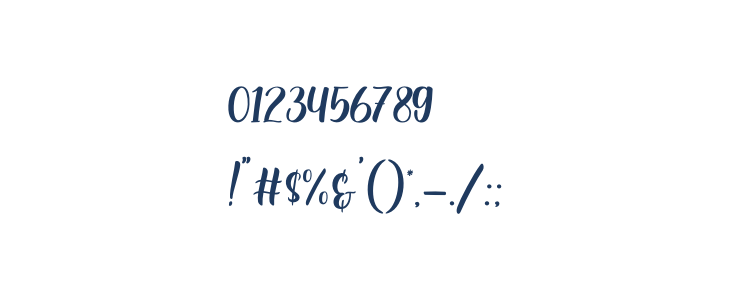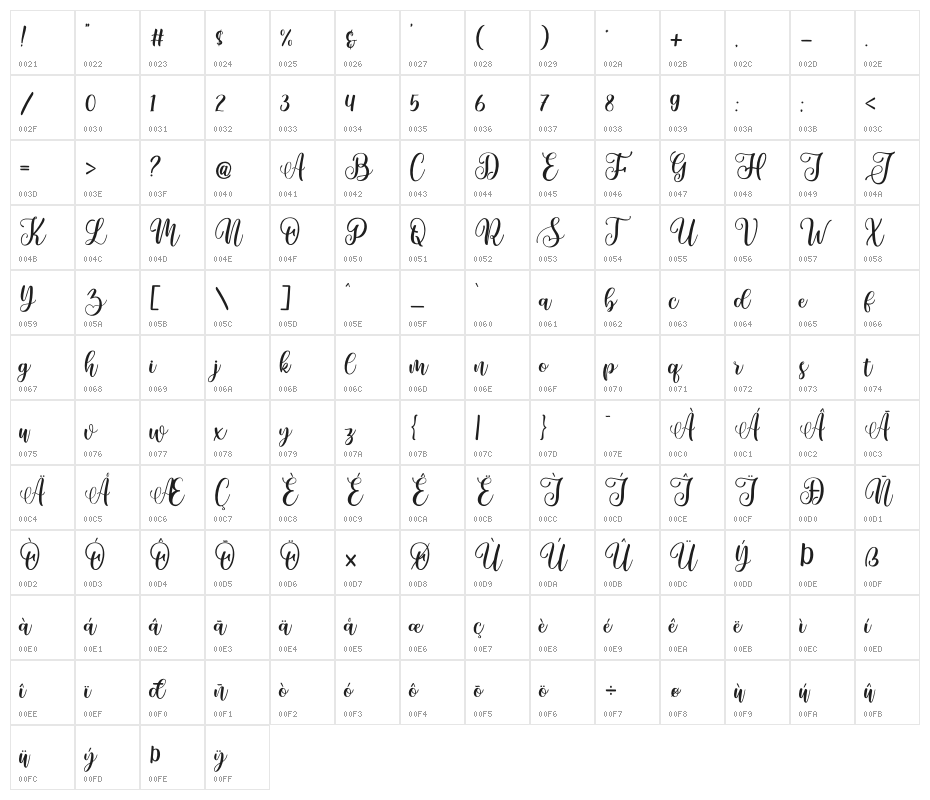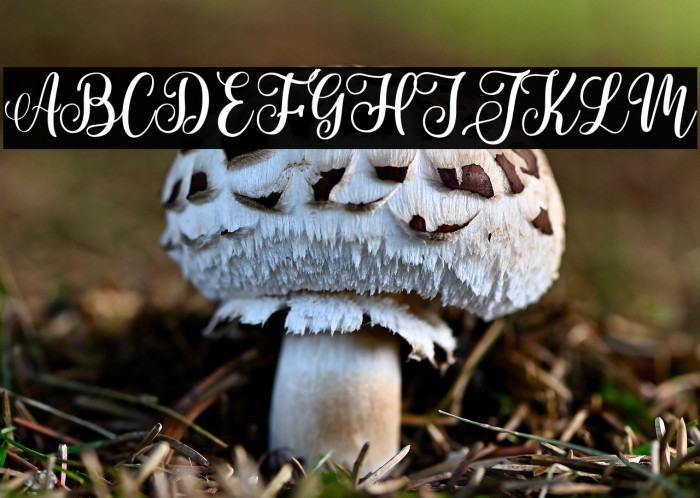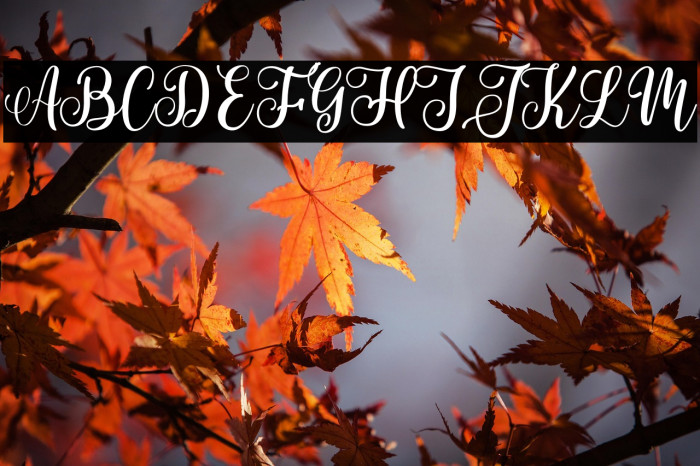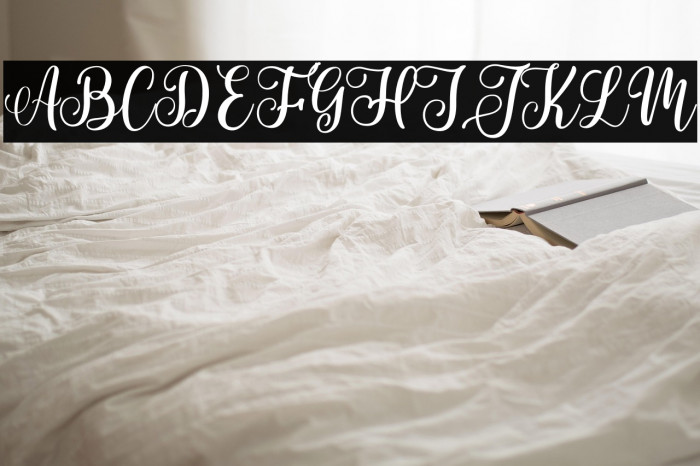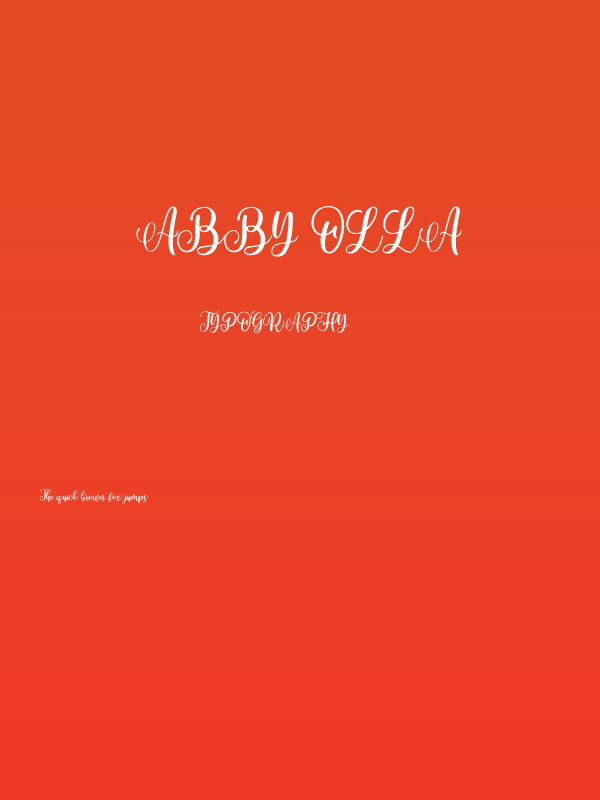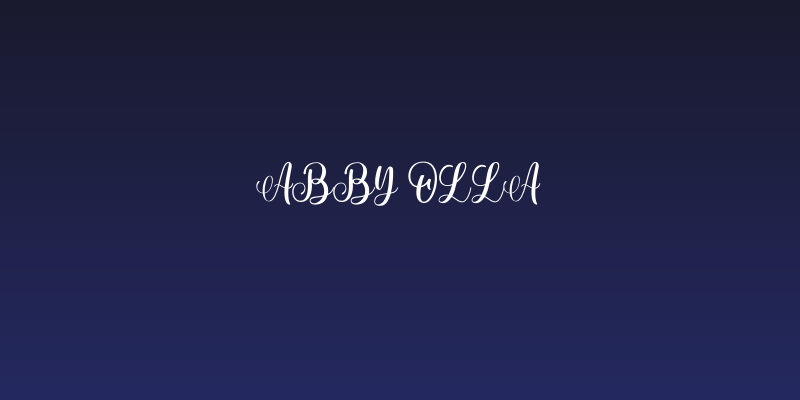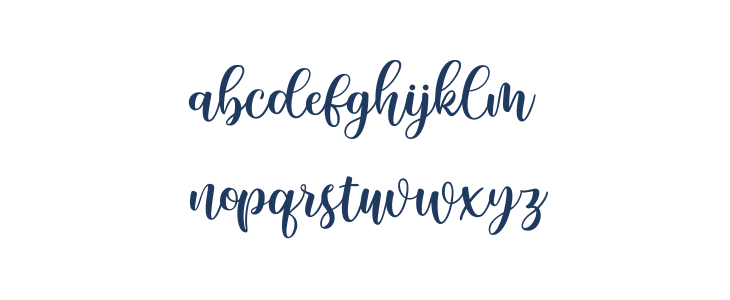
Abby Olla Font
Abby Olla Description
This font features a flowing, elegant script style with a modern twist. The uppercase letters are characterized by their intricate loops and swirls, giving them a decorative and sophisticated appearance. The lowercase letters maintain a consistent flow, with smooth curves and a slightly playful touch. The numerals are clear and easy to read, while the special characters complement the overall aesthetic with their stylish design. This font is perfect for adding a touch of elegance and personality to any project.
Use CaseLogos, Invitations, Decorative text
Proposed ProjectsIdeal for wedding invitations, branding, greeting cards, and elegant logos.